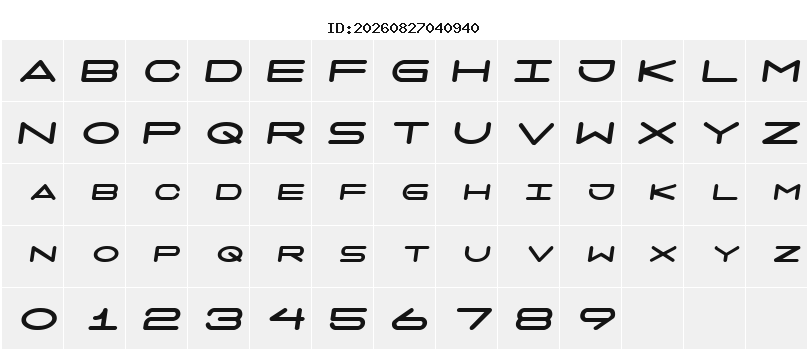
7 days fat oblique Preview
About 7 days fat oblique.ttf
7 days fat oblique.ttf is a modern, elegant sans-serif font designed for ultimate readability and visual harmony. Perfect for branding, headlines, web design, and print materials.